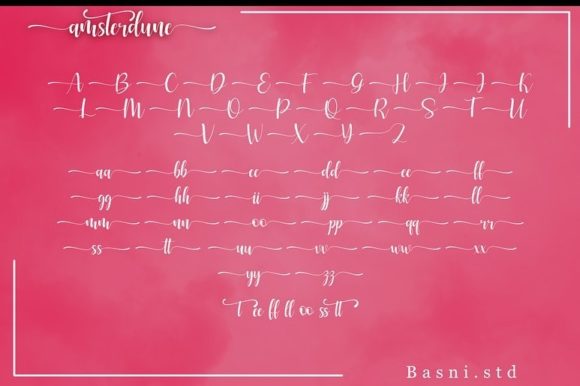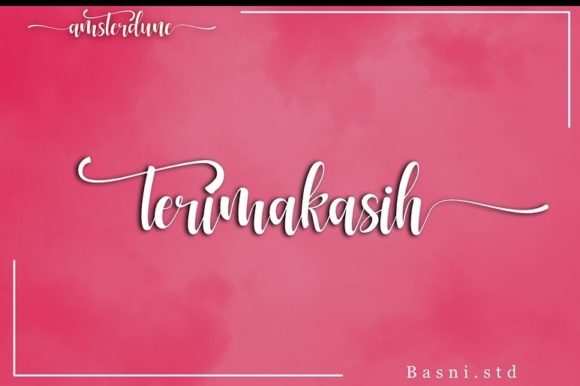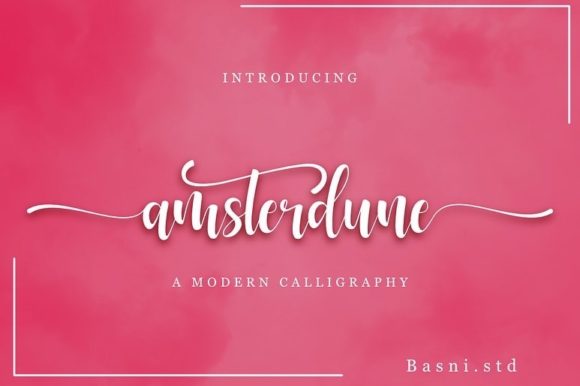
Amsterdune Font
About Amsterdune Font
Amsterdune feels equally charming and elegant. It looks stunning on wedding invitations, thank you cards, quotes, greeting cards, logos, business cards and every other design which needs a customized touch.